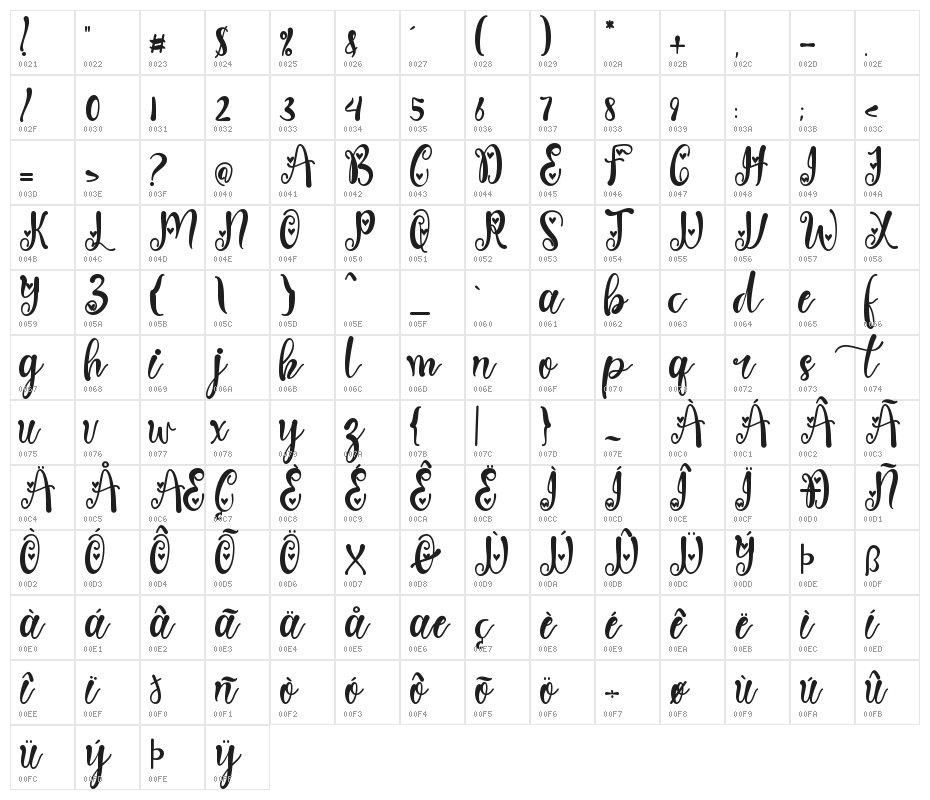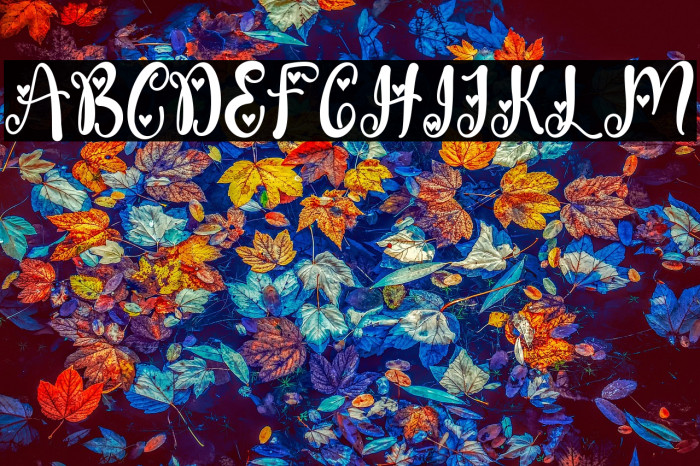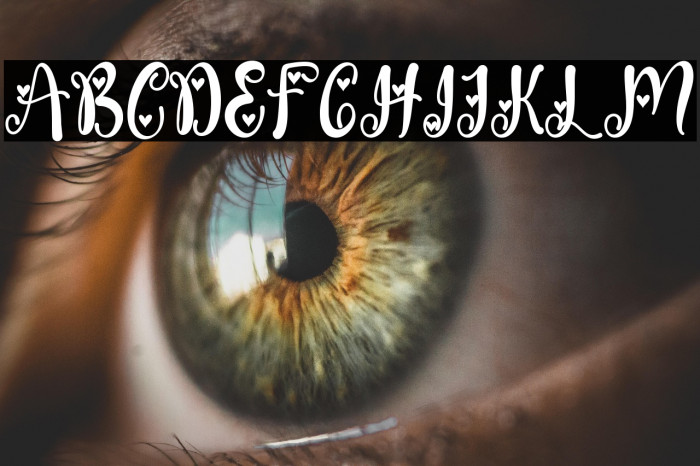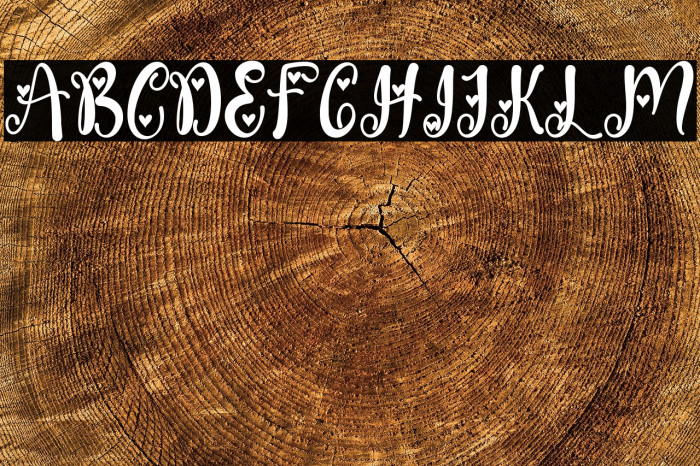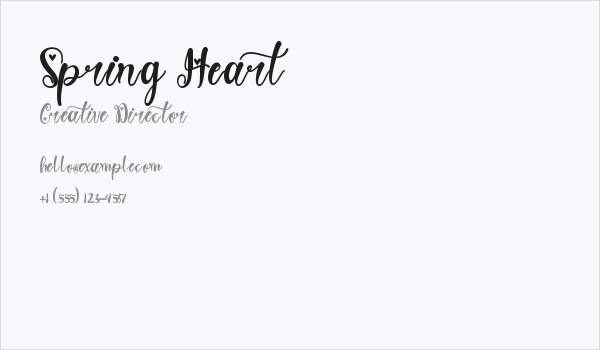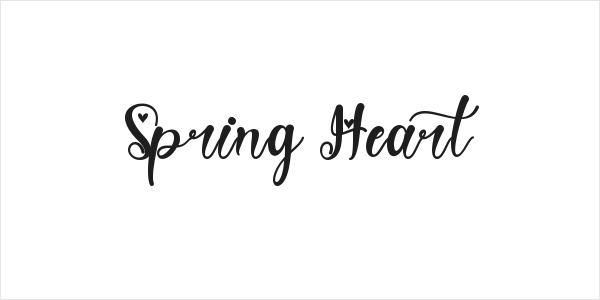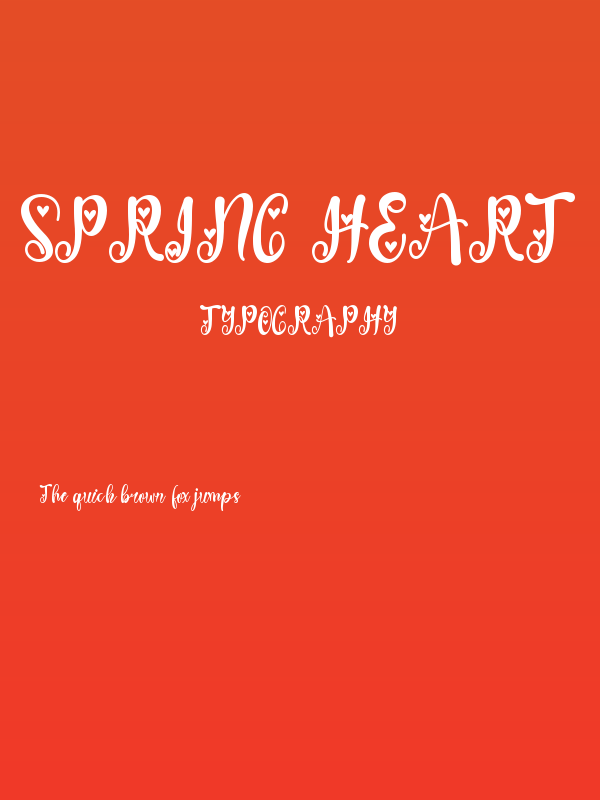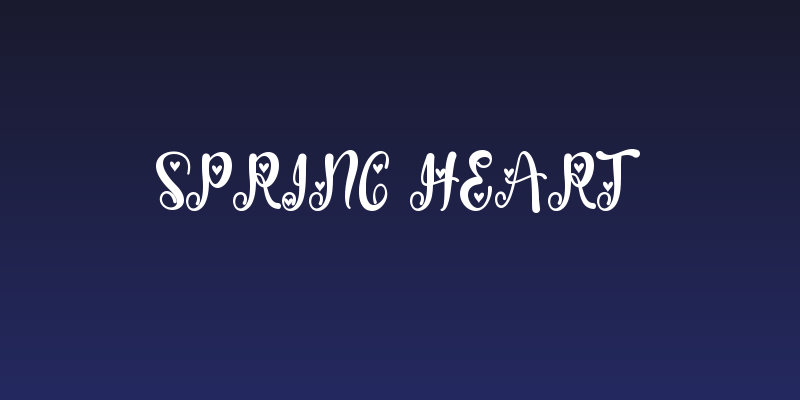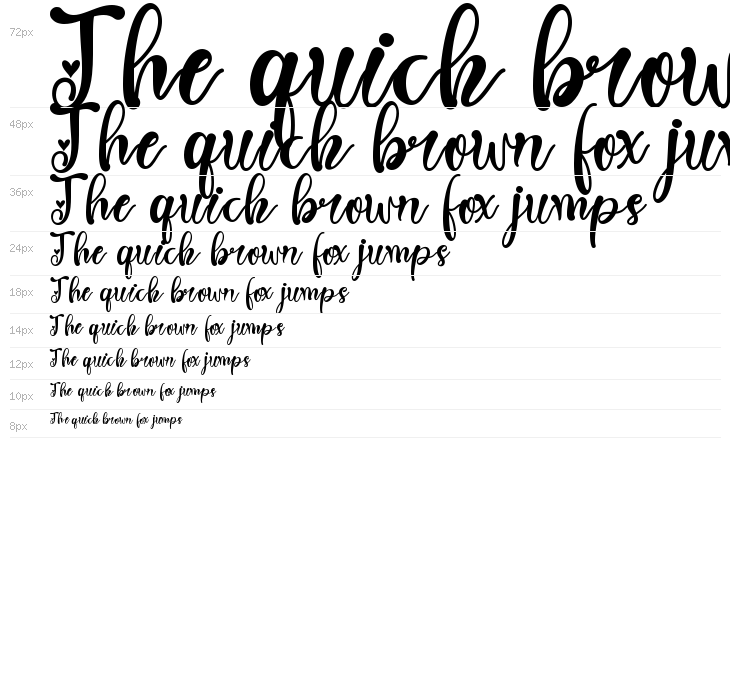
Spring Heart Font
Spring Heart Description
This font features a playful and decorative style, characterized by its whimsical heart motifs integrated into the letterforms. The uppercase letters are bold and expressive, with each character incorporating a heart shape, adding a romantic and charming touch. The lowercase letters maintain a cursive, handwritten appearance, flowing smoothly with a sense of elegance. Numbers and special characters are designed to match the overall playful theme, ensuring consistency across all glyphs. The font's unique design makes it ideal for projects that require a touch of creativity and warmth.
| Proposed Projects | Ideal for wedding invitations, greeting cards, romantic-themed branding, and playful graphic design projects. |